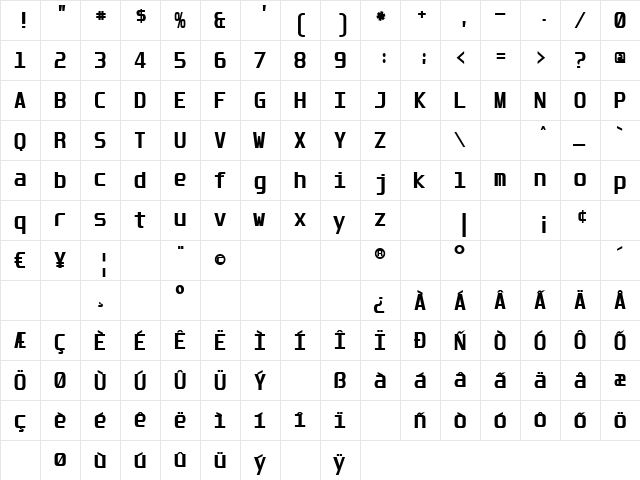
Unispace Bold
Design Context for Unispace Typeface
Unispace offers clean, dependable letterforms without strong stylistic allegiance, making it a practical choice for designers who need flexibility. Its bold stroke weight gives it real presence on the page.